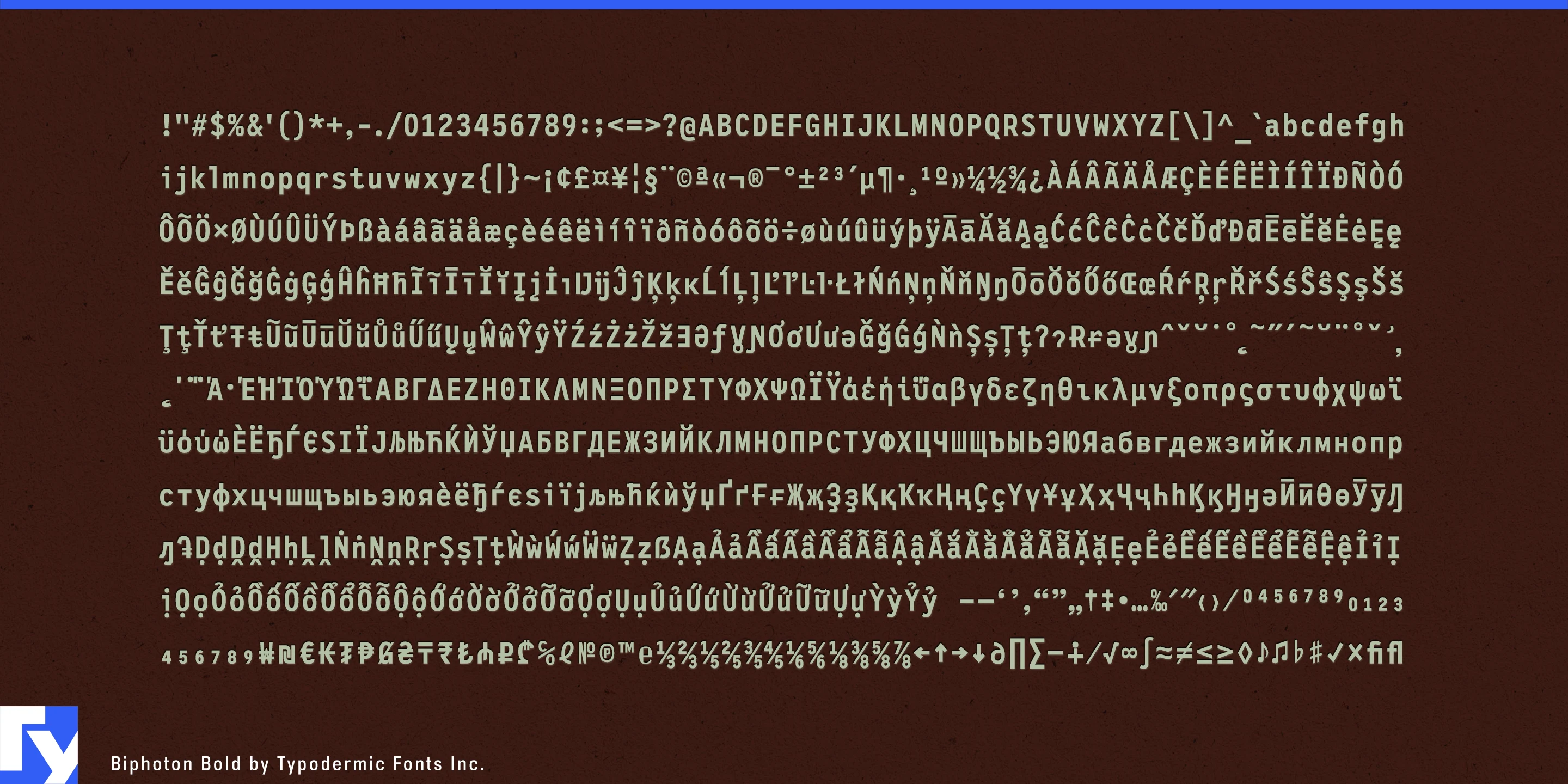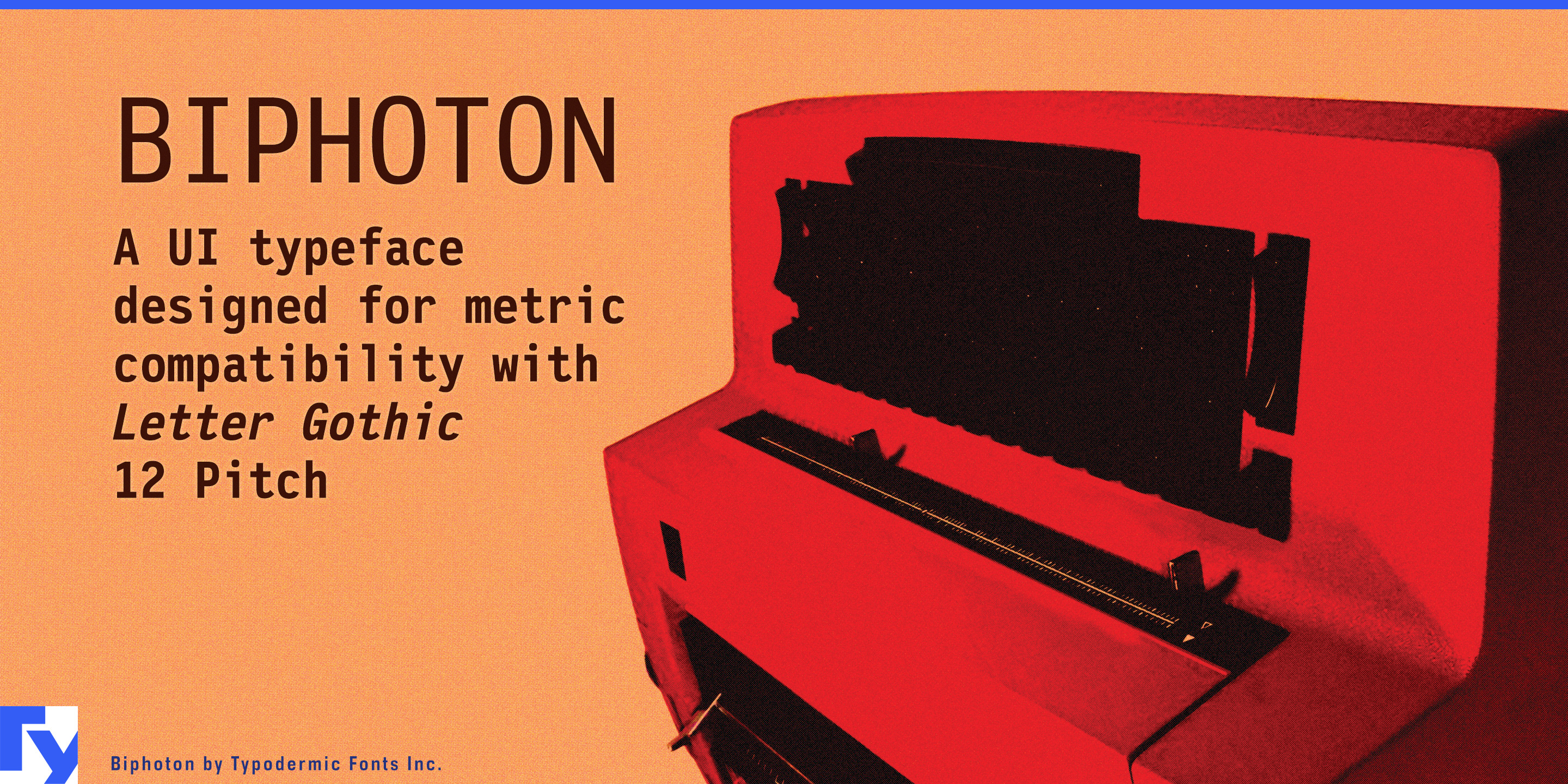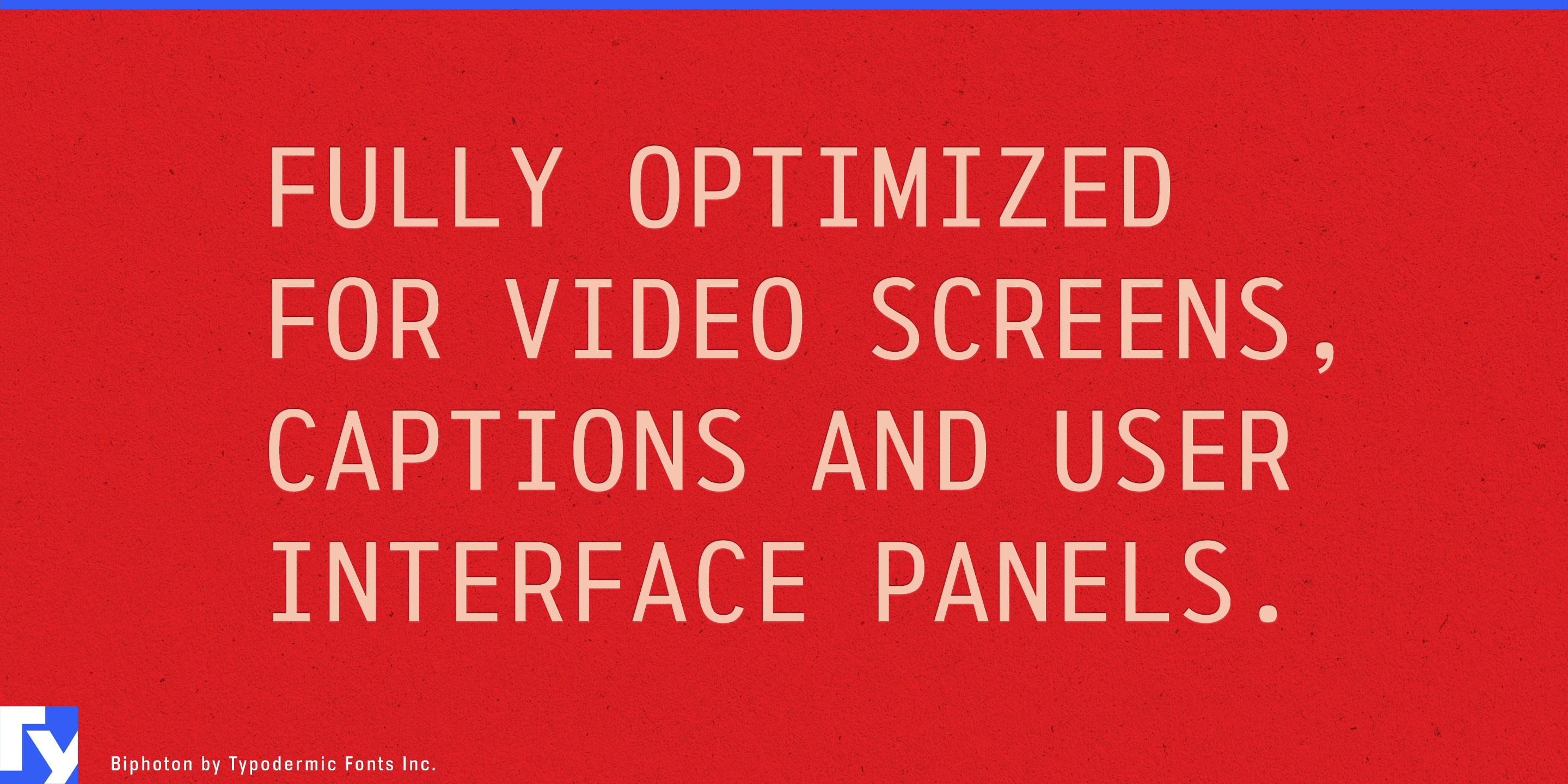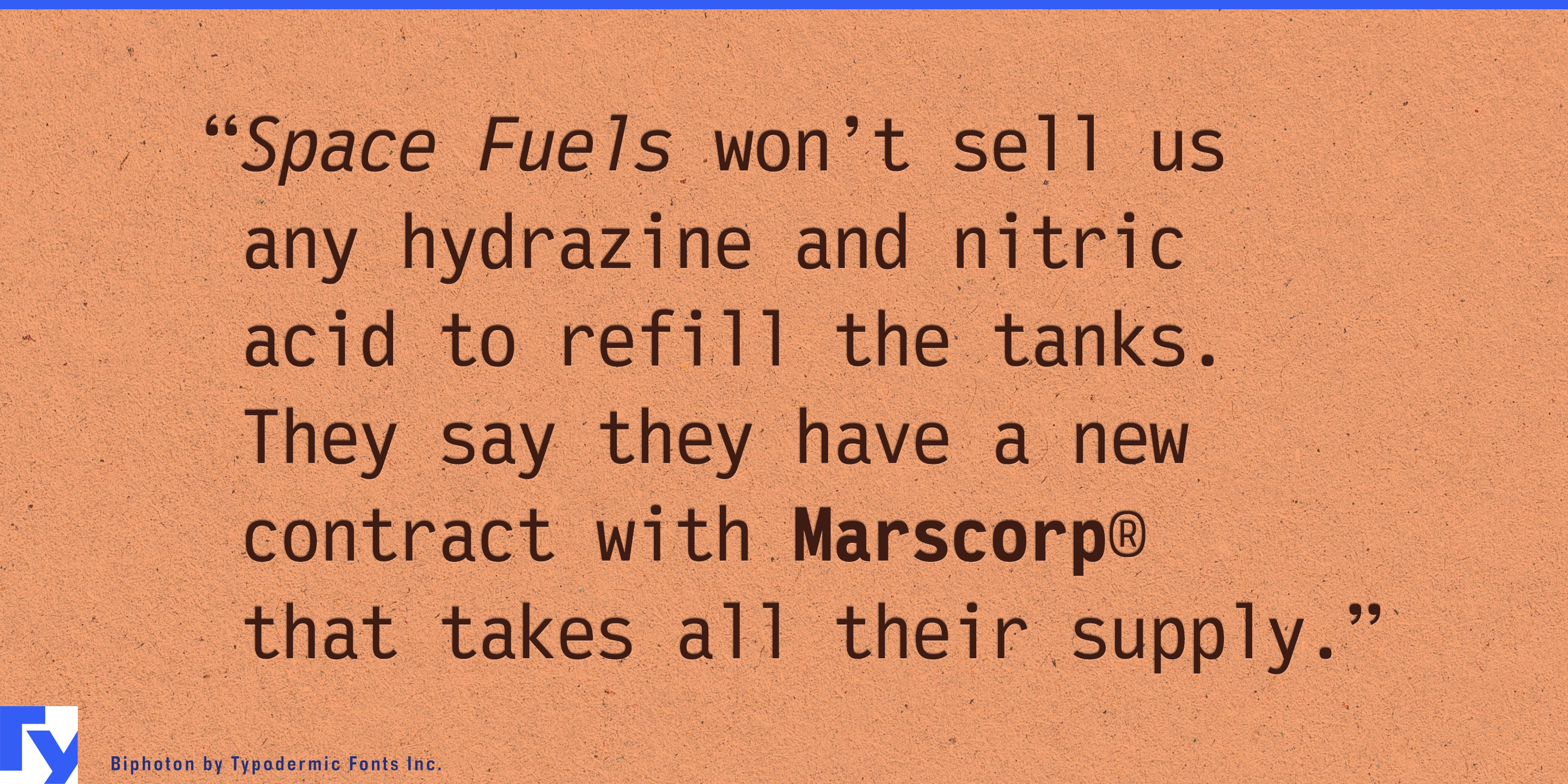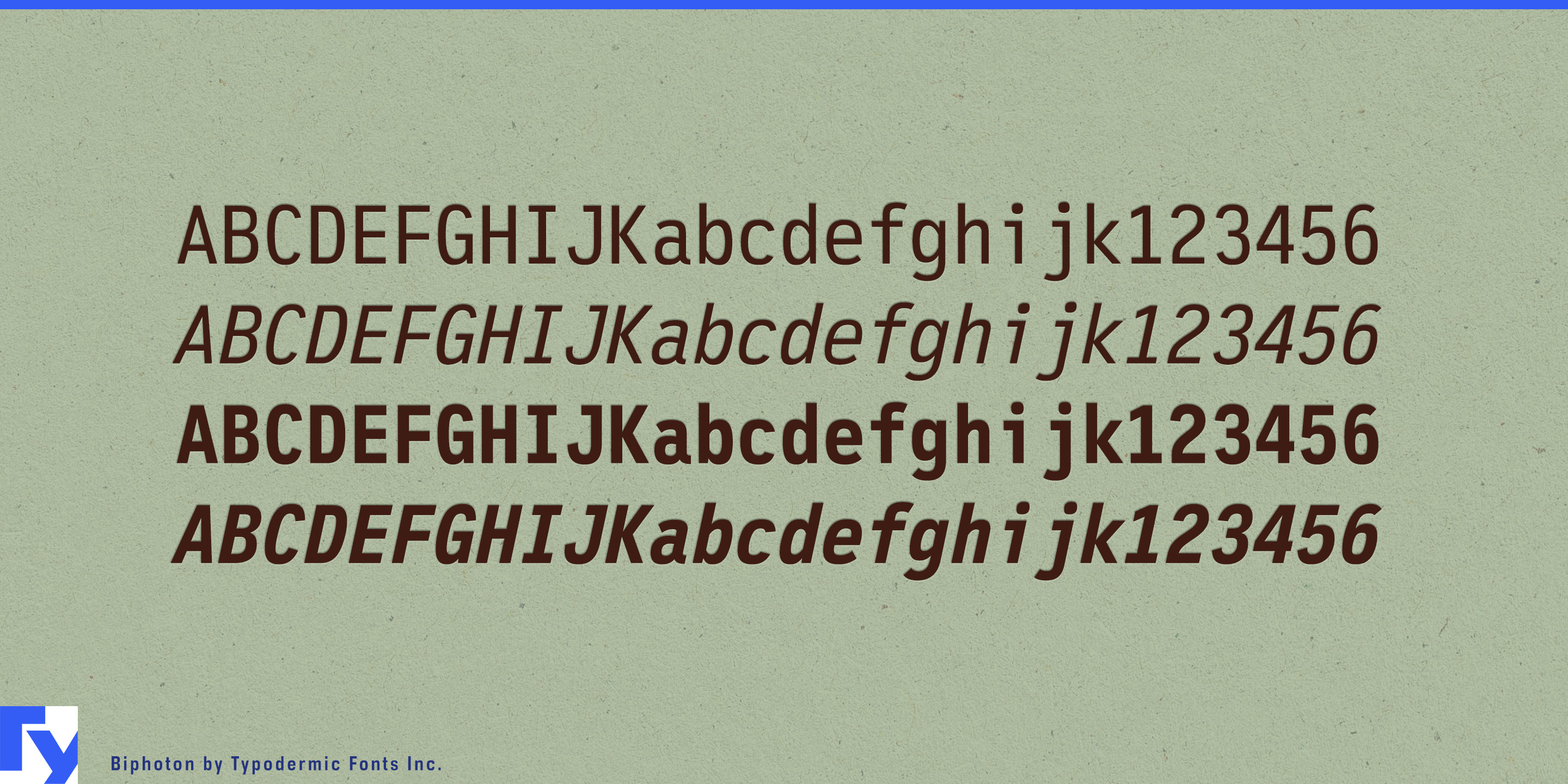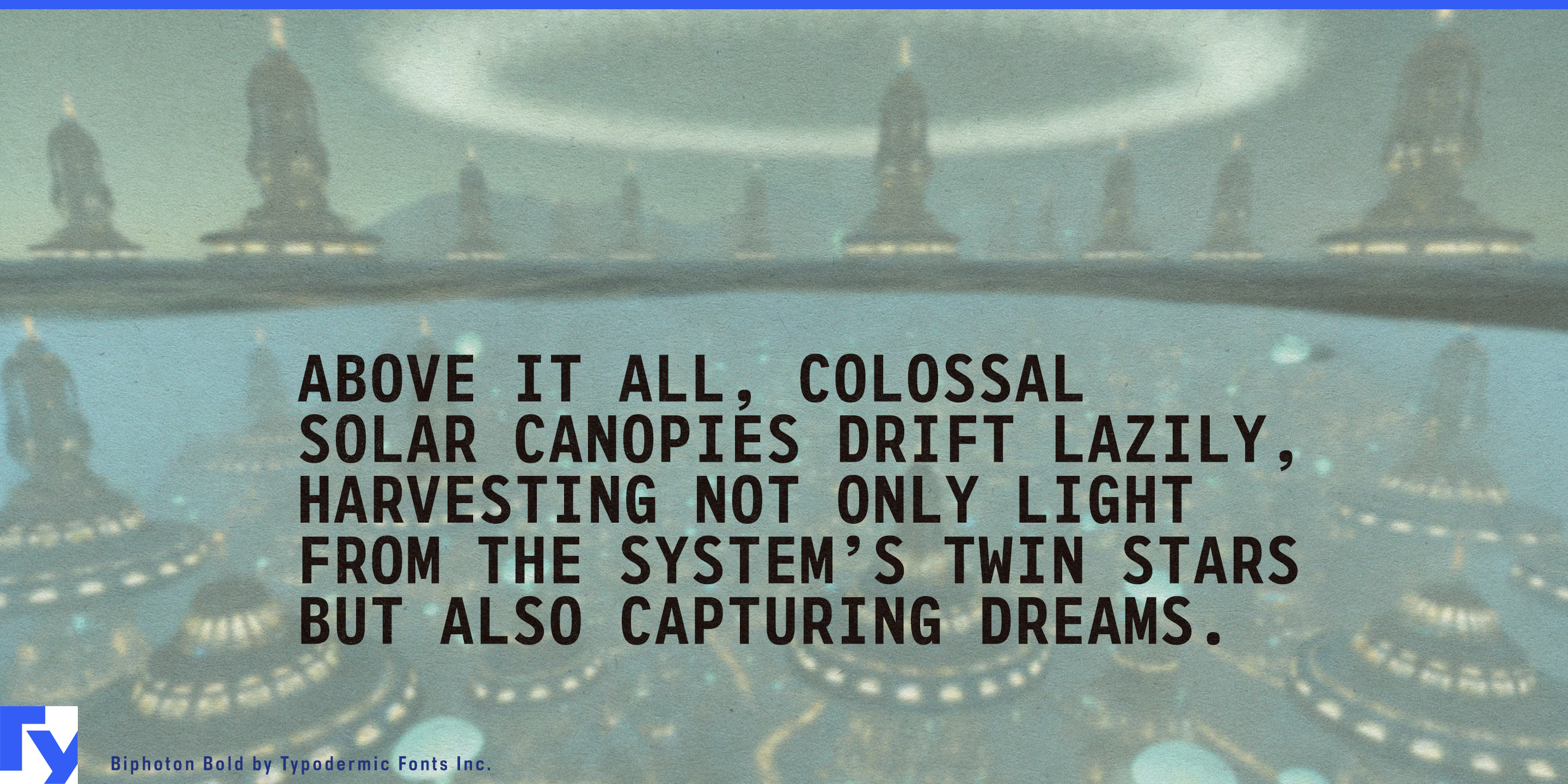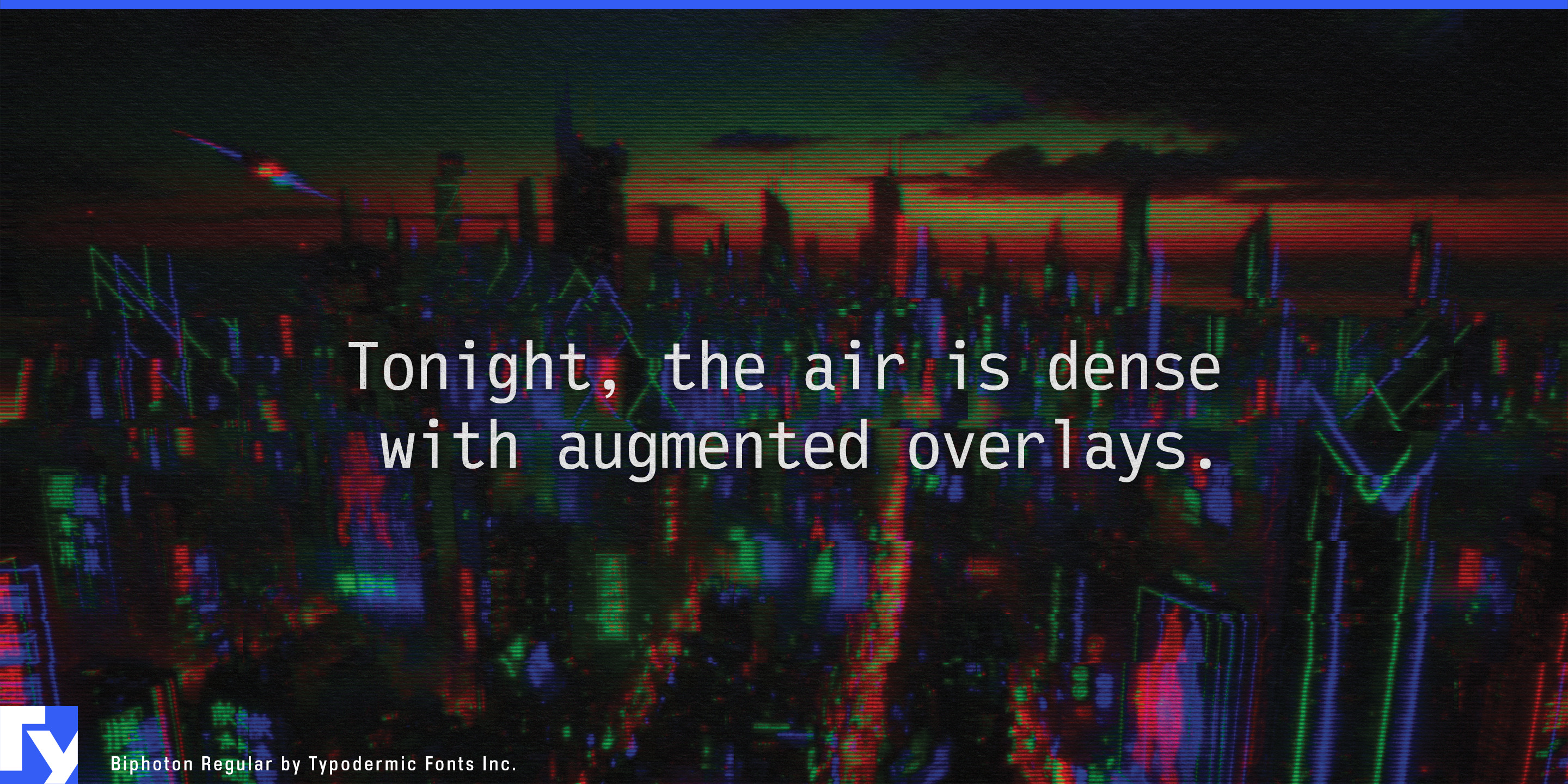
Biphoton is a monospaced sans-serif typeface built for the realities of modern screens. Designed with the exact proportions of Letter Gothic 12 Pitch, it drops in as a metric-compatible replacement wherever that classic IBM typeface is still specified—yet delivers sharper, more consistent results on today’s displays.
Every detail is tuned for video captions, embedded UI panels, and technical readouts, from streaming apps to in-flight entertainment systems. Stroke widths are balanced for clarity under low-resolution conditions; spacing is calibrated so captions remain steady and legible across weights and italics. The result is a typeface that performs flawlessly in continuous reading situations where every character counts.
Biphoton goes beyond the basics with a full set of currency symbols, numeric ordinals, primes, and pre-composed fractions—features that keep subtitles, menus, and status readouts precise and unambiguous. Its language support extends well beyond the needs of most captioning specs, covering Latin, Cyrillic, Greek, and Vietnamese, making it a practical choice for international deployments.
Whether you’re replacing Letter Gothic for compliance, updating legacy interfaces, or ensuring that captions look as good as they read, Biphoton brings a new level of purpose-built clarity to monospaced typography.